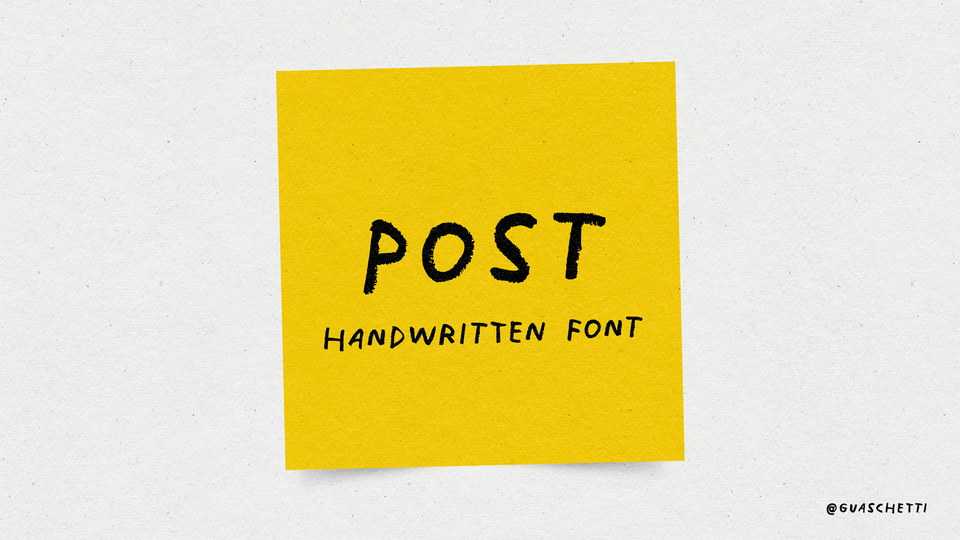
Download Post font, an authentic handwritten typeface made in the style of ink writing techniques. Smooth and rounded shapes of the font gives Post font an unusual and unique look.
Designer: Javier Guaschetti